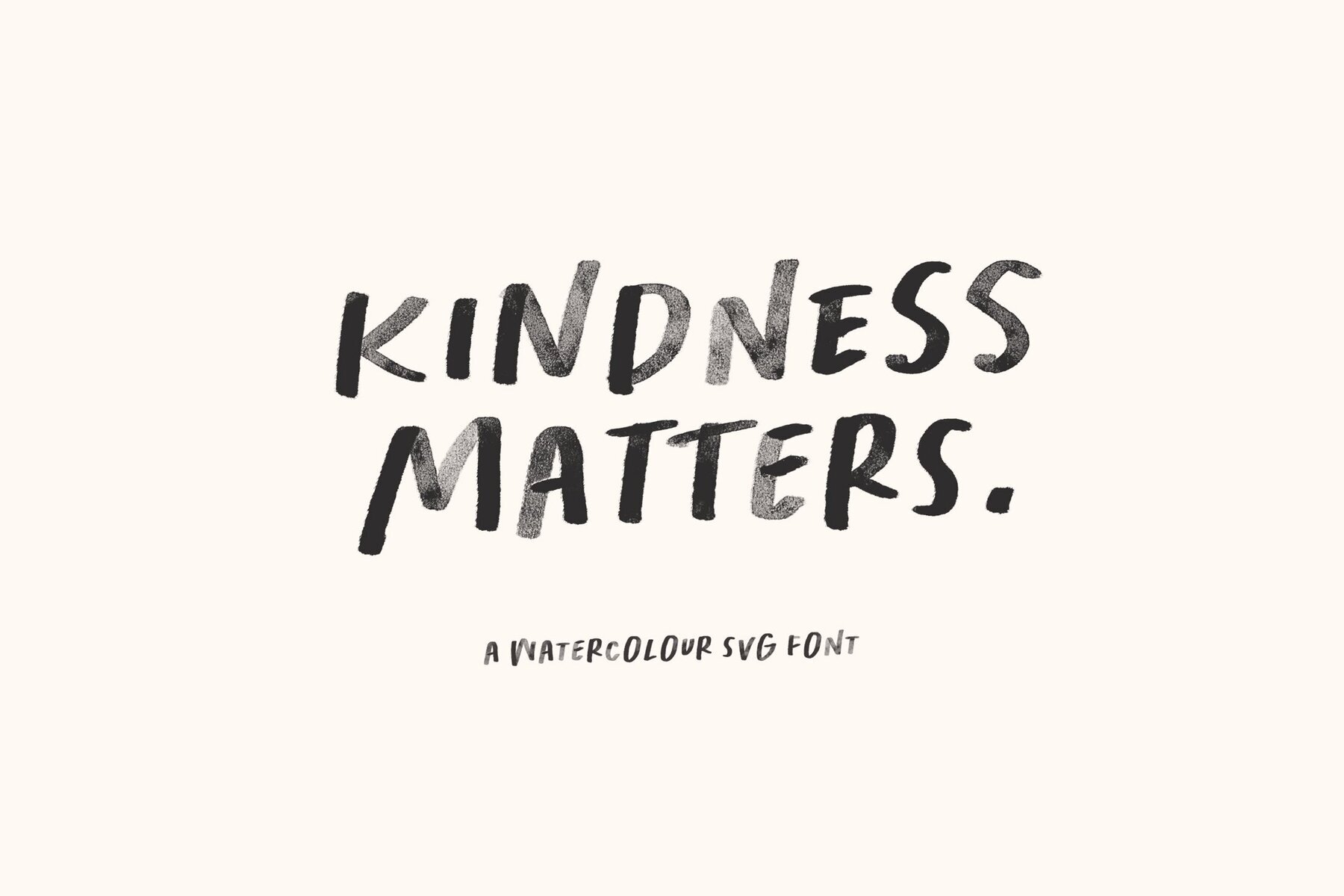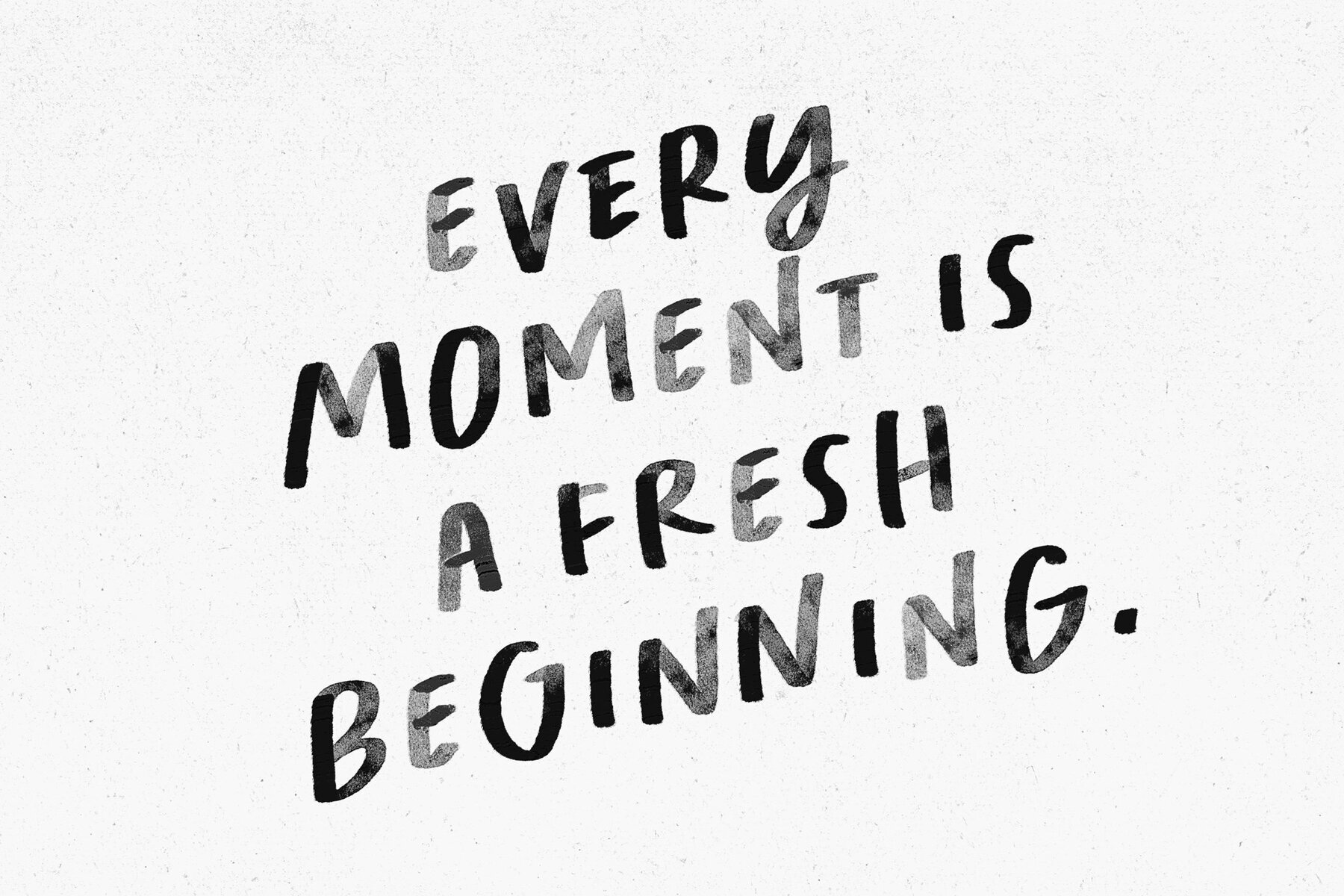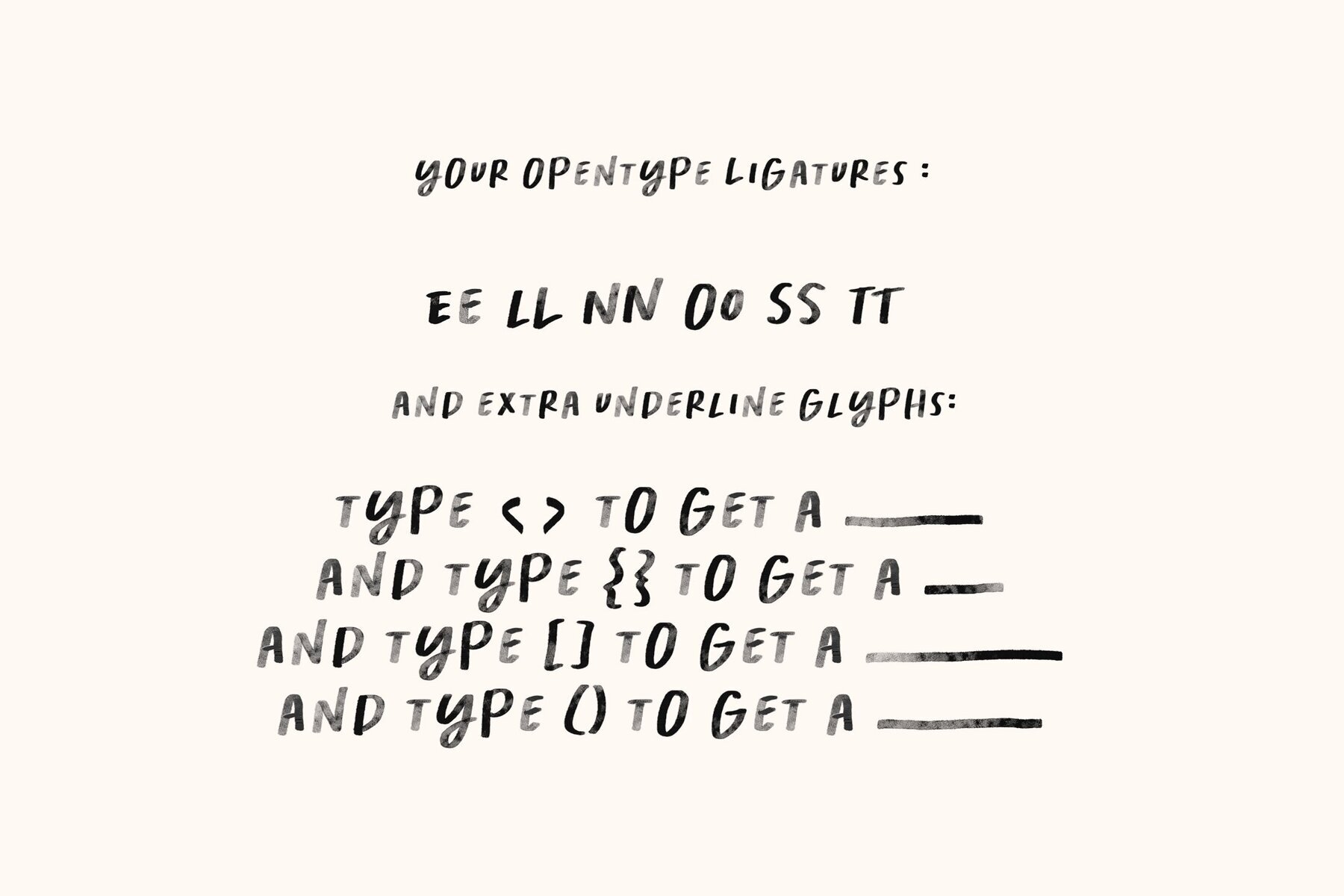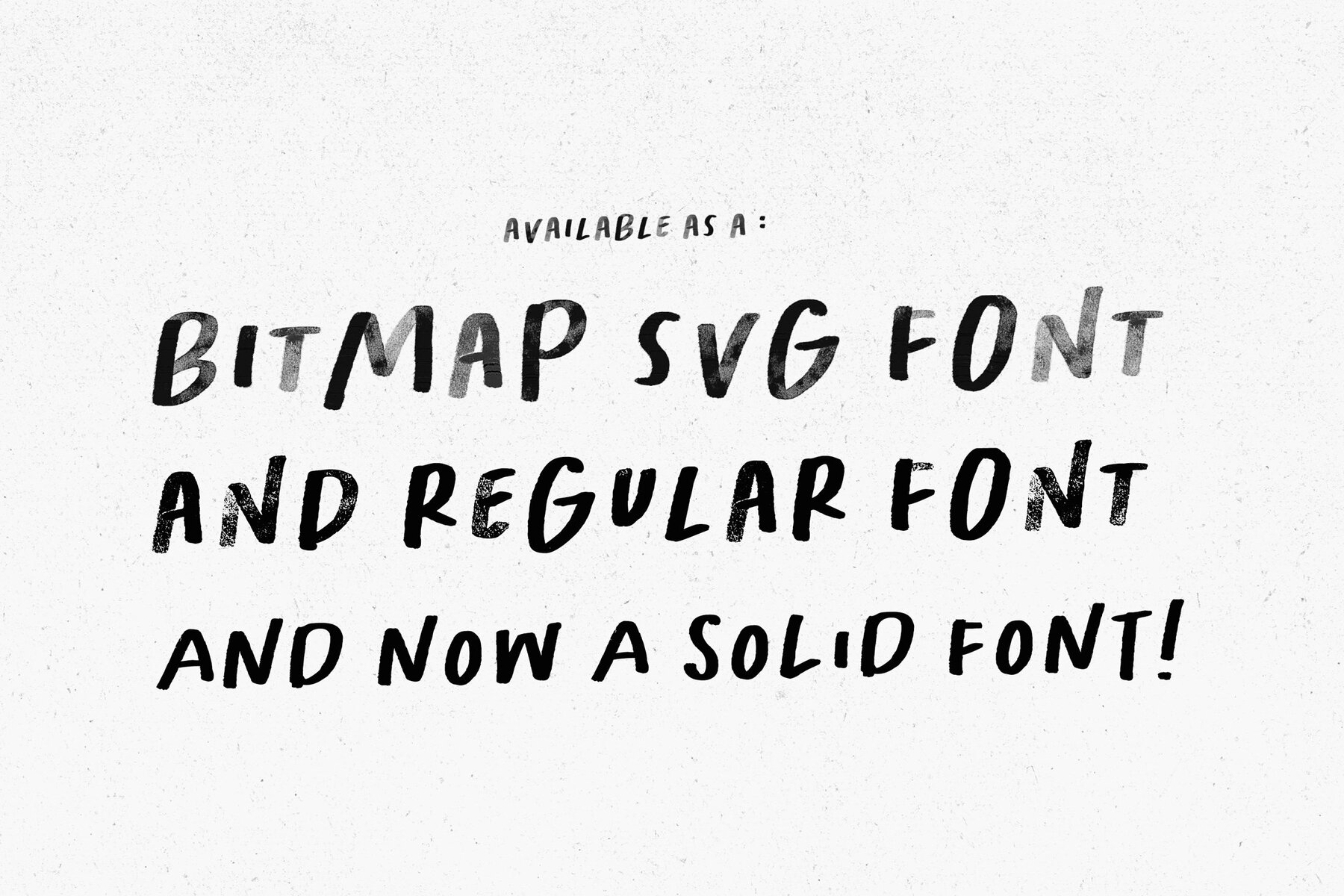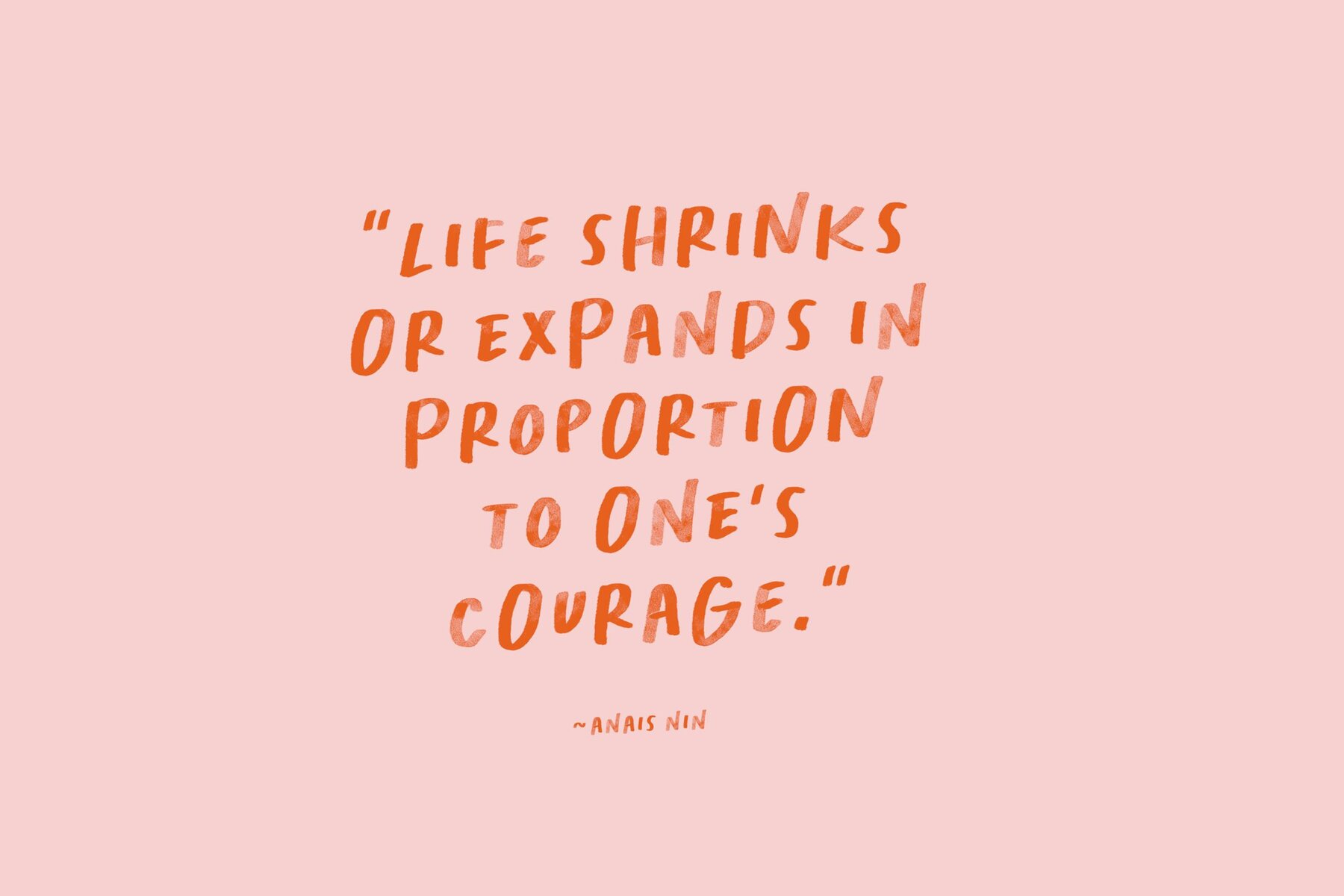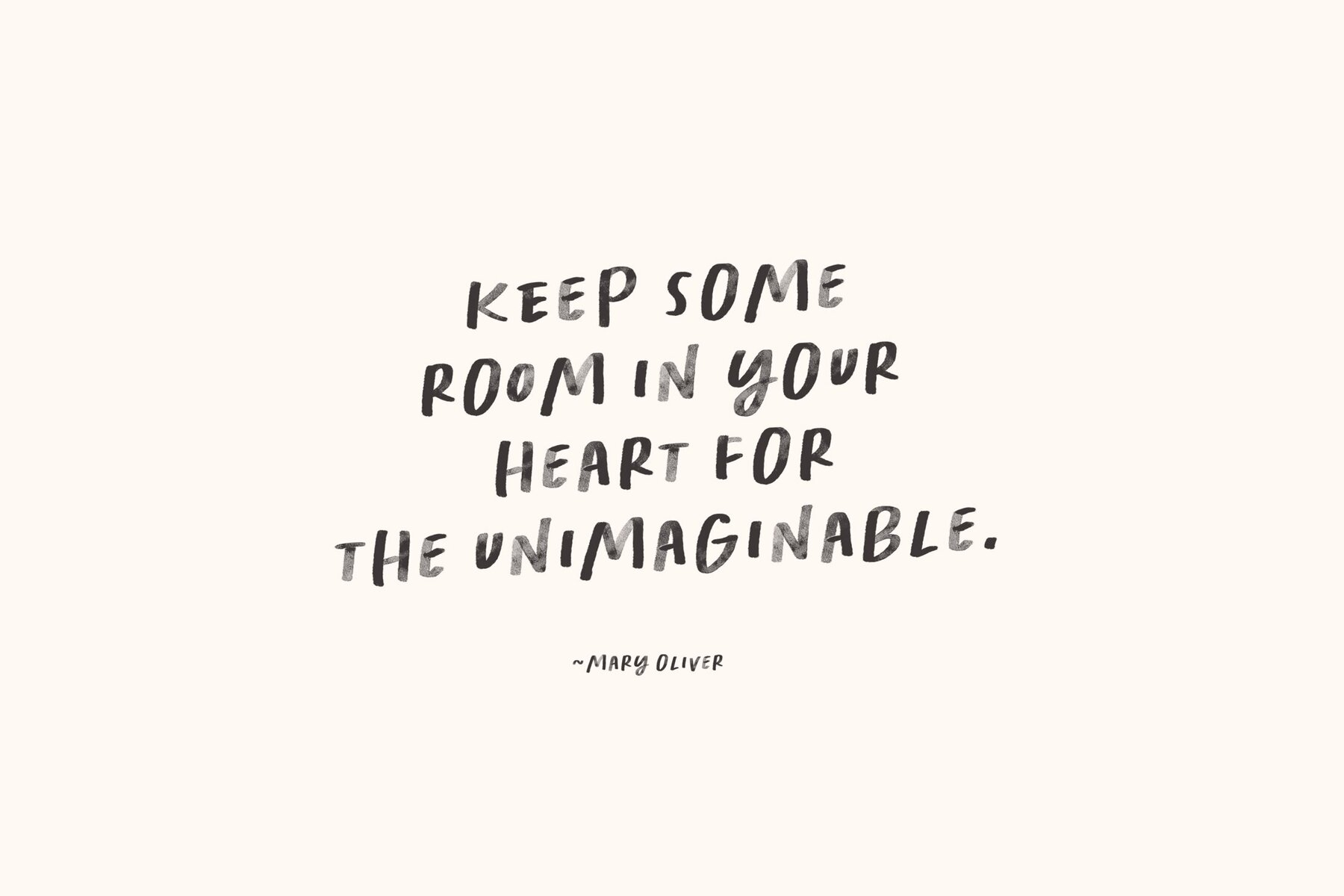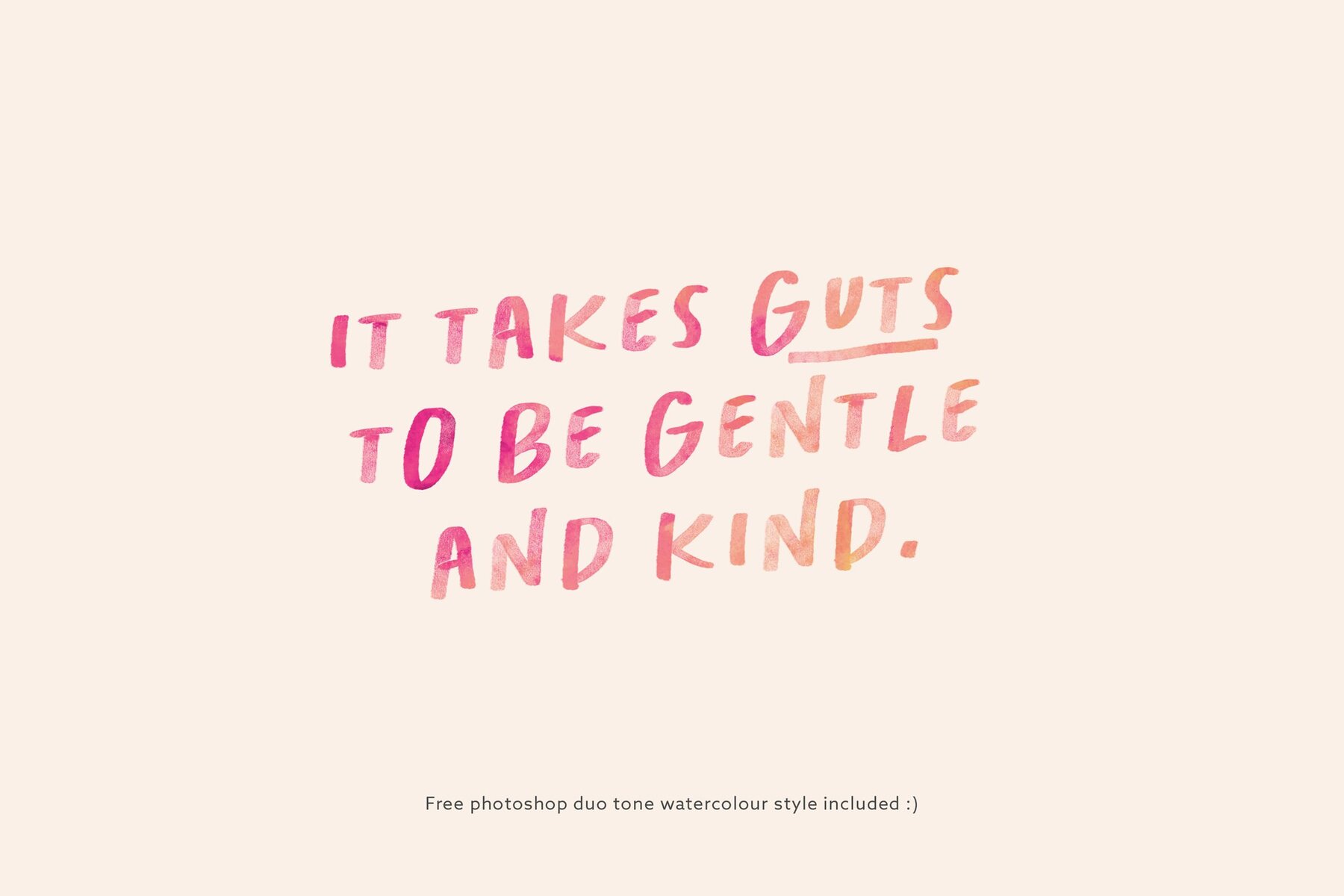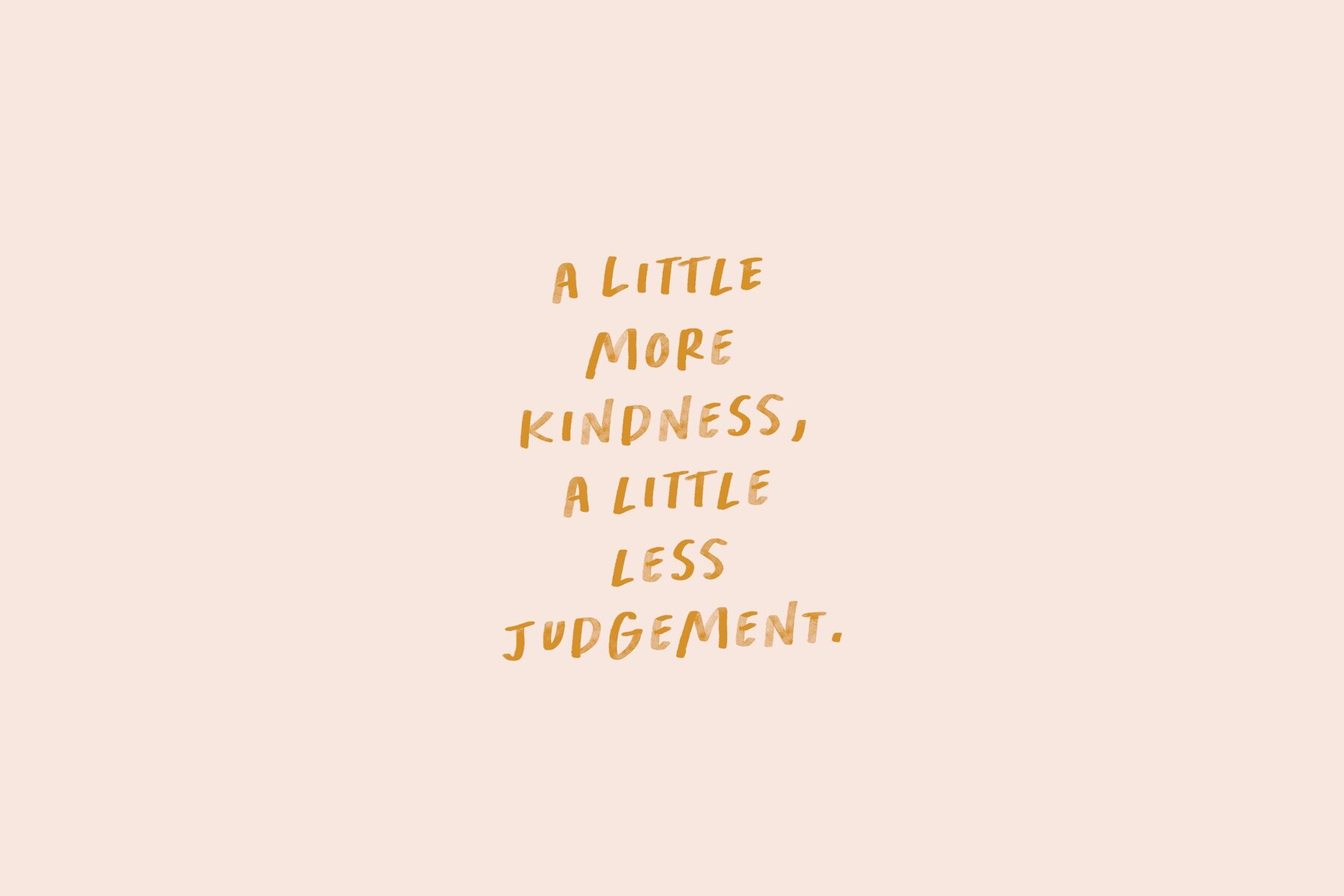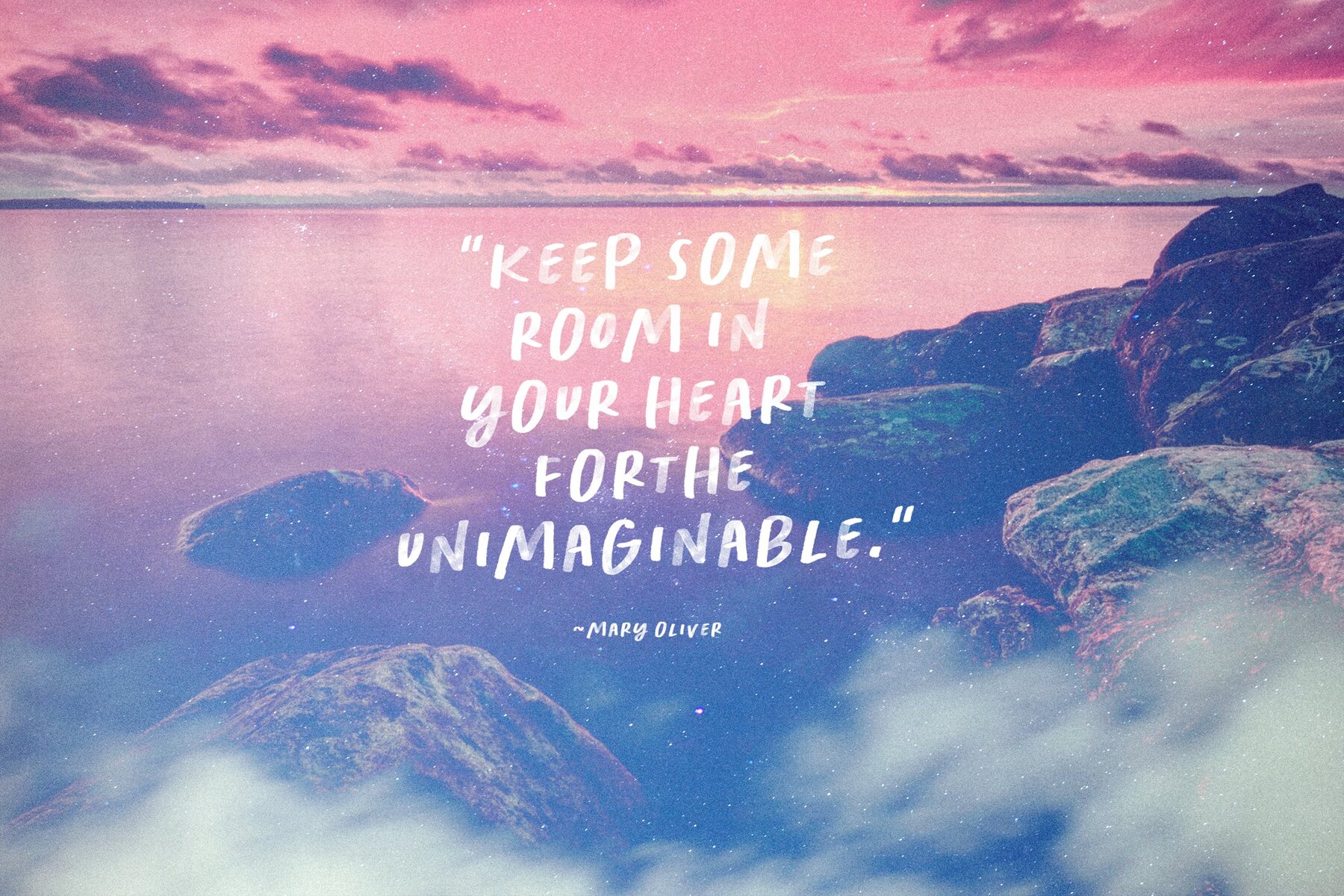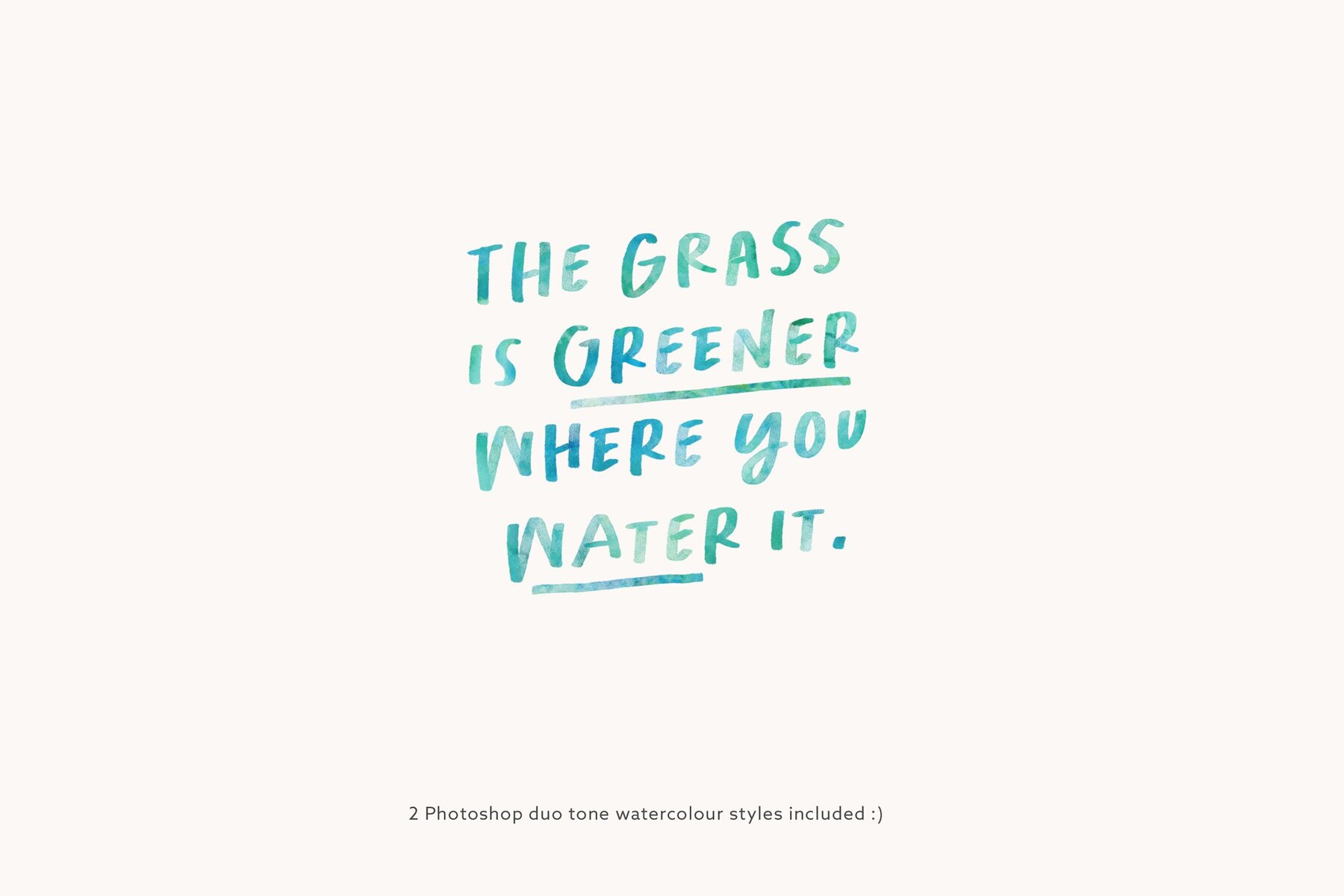
Kindness Matters SVG Font
We're delighted to announce an update to our popular Kindness Matters font. By widespread request, we've added a solid regular version, amplifying the versatility of this charming collection. Kindness Matters is more than a font; it's a manifesto and a gentle reminder of the importance of compassion in our everyday lives. Its quirky, all-caps design carries an innate watercolor texture that mimics reality beautifully. This SVG font is the perfect choice to adorn quotes, posters, flyers, social media posts, and so much more. To maximize your creative possibilities with Kindness Matters, make sure you have either Photoshop CC 2017 or Illustrator CC 2018, or newer versions. But worry not if you're using other platforms – we've included the regular font as well! In the spirit of giving you more, we've also added some delightful extras. You'll find four handy 'underlines' nestled within the Glyphs set, easily accessible via the Glyphs panel in Photoshop. All you need to do is ensure your ligatures are activated in your Character panel and then type out any of the four bracket keys on your keyboard: (), {}, [], and. And that's not all. We've also thrown in two bonus Photoshop Duotone Watercolour styles. With just one click, you can overlay your SVG font with a stunning watercolor effect that really makes it stand out. At present, Kindness Matters offers language support exclusively for the English character set.